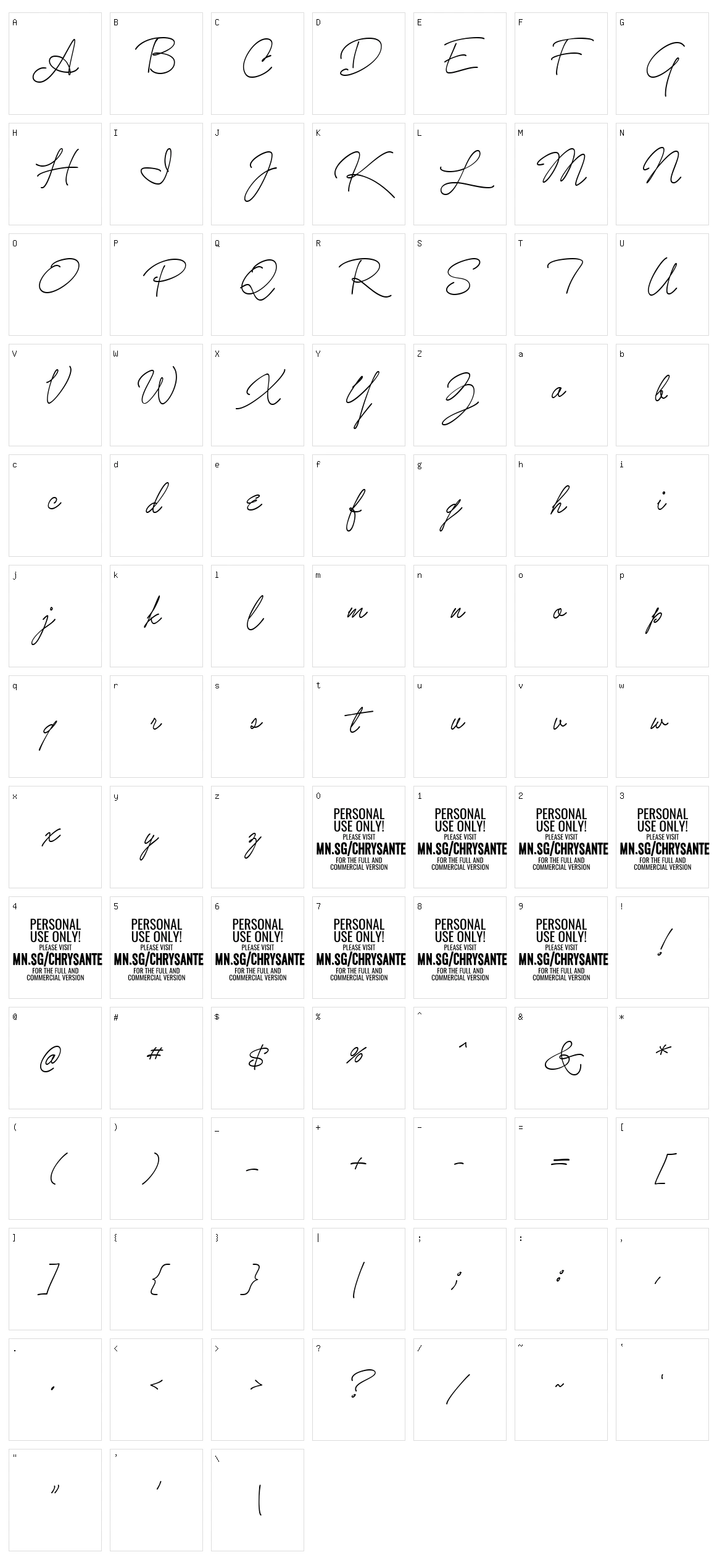
Chrysante is a flowing pen script.
The typeface was drawn and created by Måns Grebäck between 2018 and 2020.
Its thin lines are inspired by mid-century advertising, emits optimism and has a strong personality.
The ink script family consists of three weights: Chrysante Thin, Chrysante Medium and Chrysante Bold.
Its multiple alternate alphabets gives the font a true handwritten feeling.
Use it for a logotype, a greeting card or as a headline.
The font contains all characters you'll ever need, including all punctuation and numbers.
It has an extensive lingual support, covering all European Latin-based scripts.